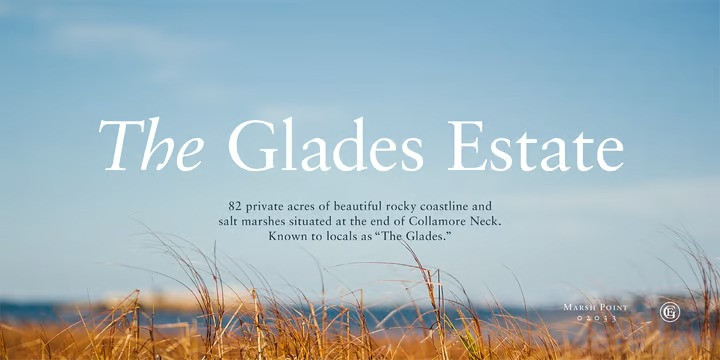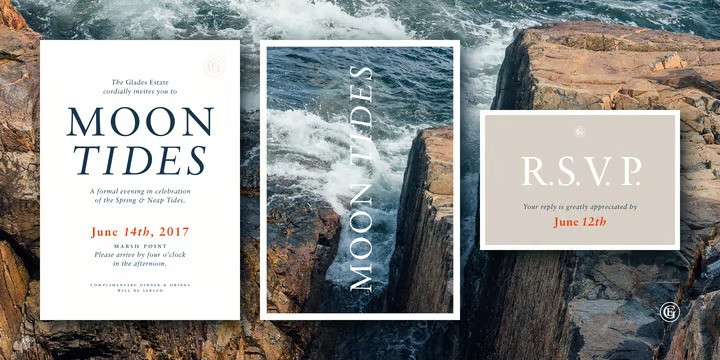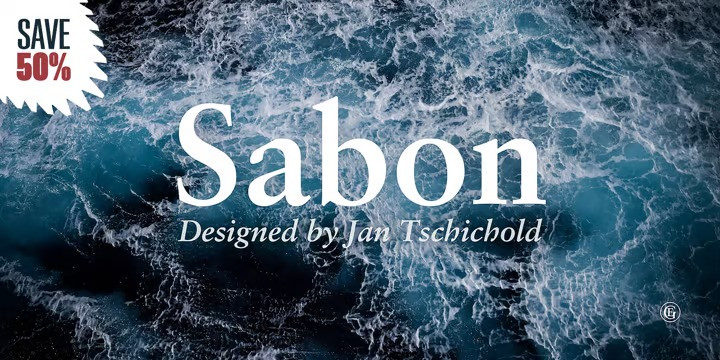
Sabon Font
In the early 1960s, the German Master Printers’ Association requested that a new typeface be designed and produced in identical form on both Linotype and Monotype machines so that text and technical composition would match. Walter Cunz at Stempel responded by commissioning Jan Tschichold to design a new version of Claude Garamond’s serene and classical Roman. Its bold, and particularly its italic styles are limited by the requirements of Linotype casting machines, forcing the character widths of a given letter to match between styles, giving the italic its characteristic narrow f. The family’s name is taken from Jacques Sabon, who introduced Garamond’s Romans to Frankfurt. Sabon has long been a favorite of typographers for setting book text, due to its smooth texture, and in large part because Tschichold’s book typography remains world famous.